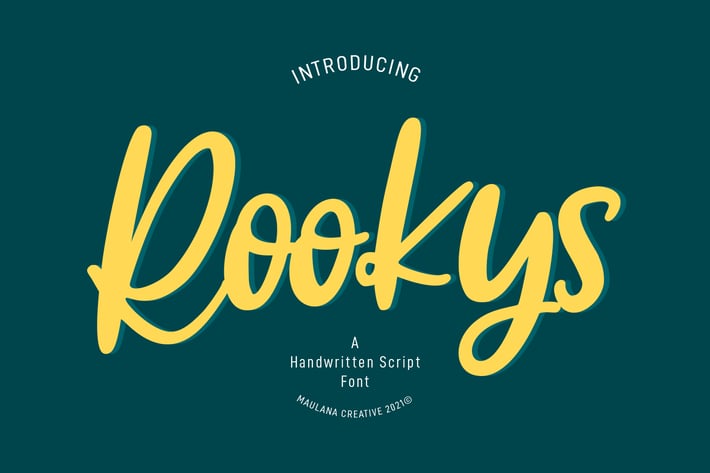
Rookys Handwritten Script Font
Rookys is a cartoon-is vibes handwritten display font. With bold stroke, slant and Unique Upper and lower characters with bit of ligatures. To give you an extra creative work. Rookys font support multilingual more than 100+ language. This font is good for logo design, Social media, Movie Titles, Books Titles, a short text even a long text letter and good for your secondary text font with sans or serif. Make a stunning work with Rookys font.